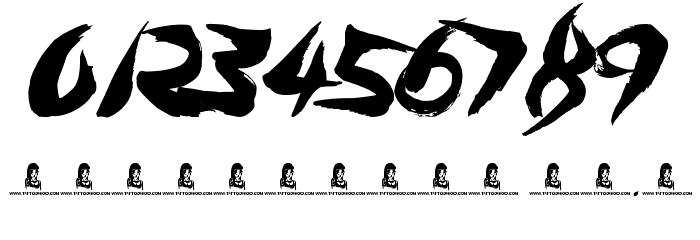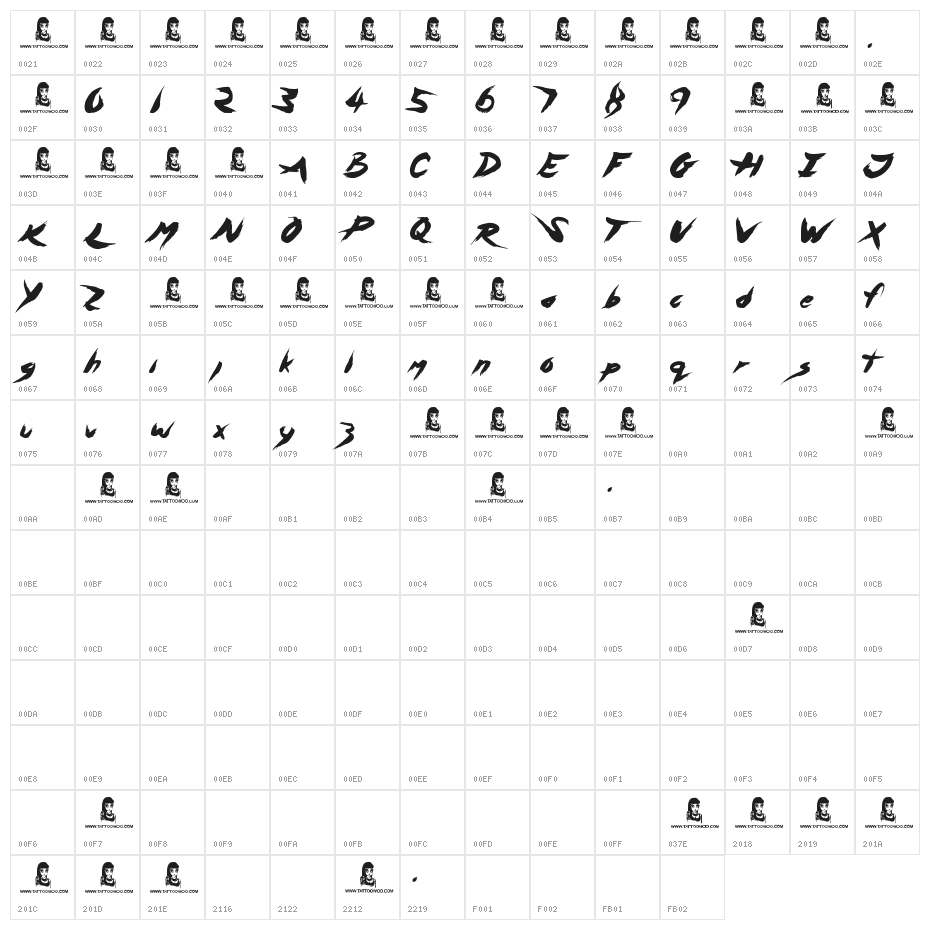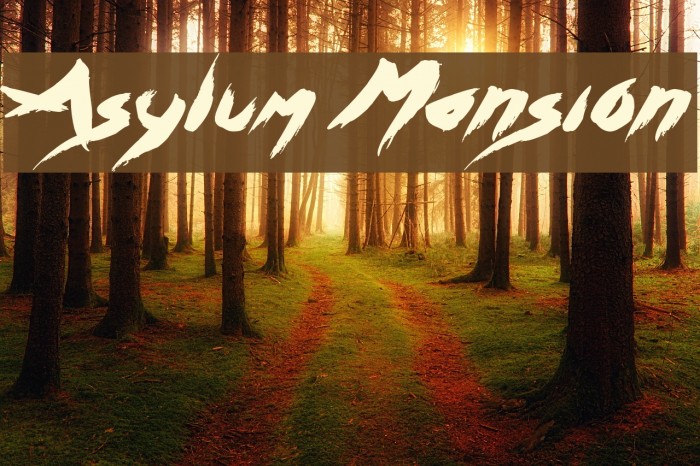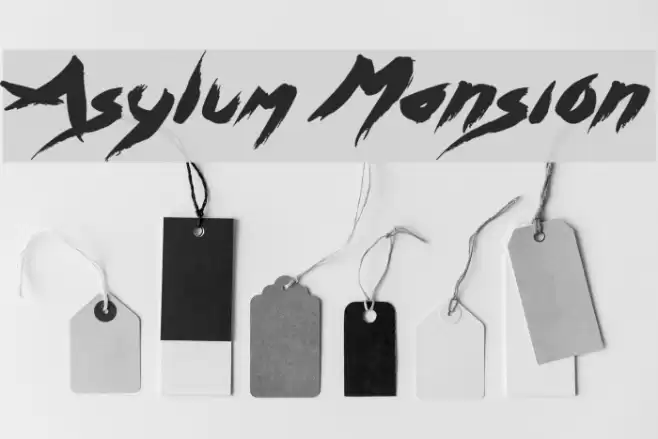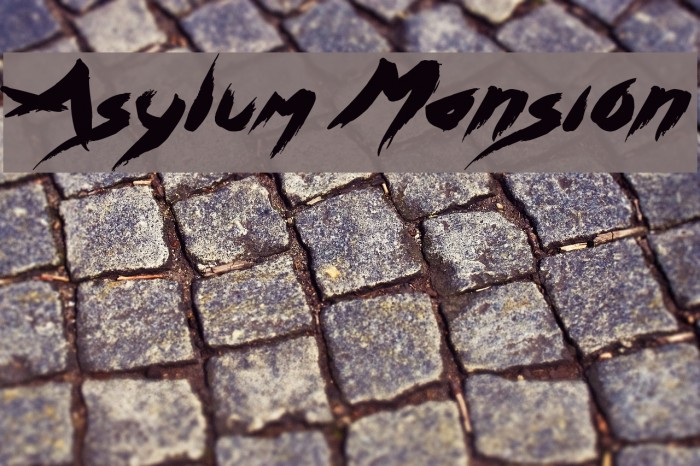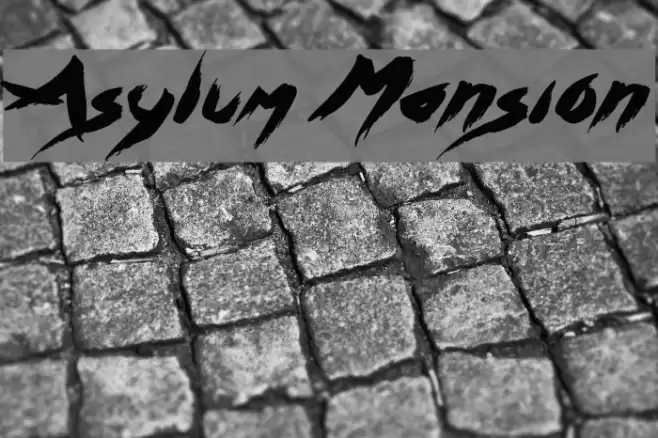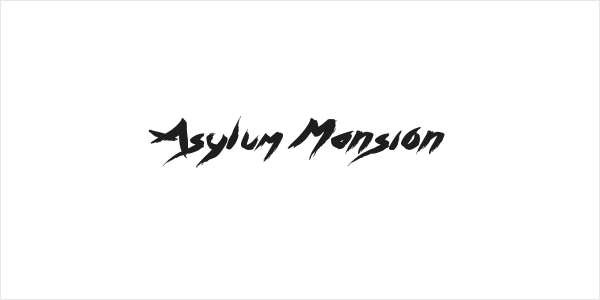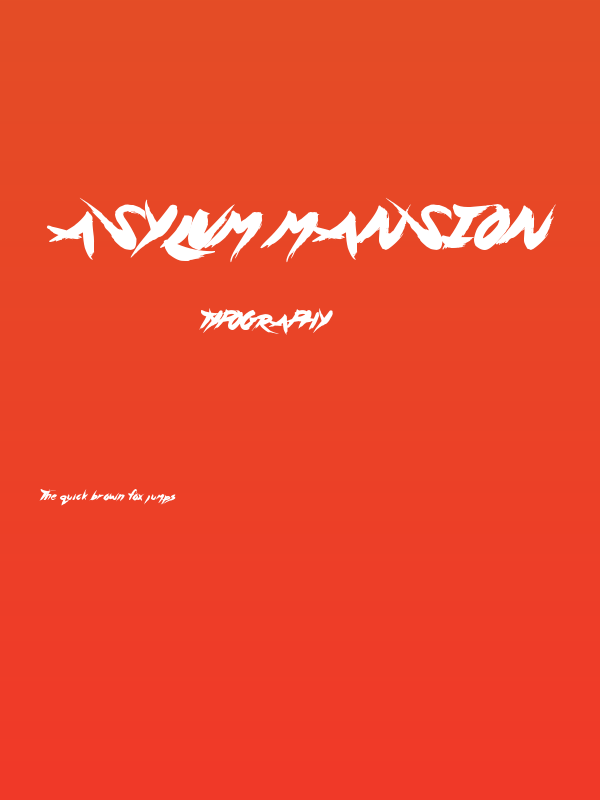
Asylum Mansion Font
Asylum Mansion Description
This font features a bold and expressive brush style, characterized by its dynamic and energetic strokes. The letters are crafted with a sense of movement, giving them a lively and artistic appearance. The uppercase and lowercase characters maintain a consistent style, with sharp angles and varying stroke widths that add to the dramatic flair. The numbers and special characters follow the same expressive design, ensuring a cohesive look across all elements. This font's unique style makes it stand out, ideal for projects that require a strong visual impact.
| Proposed Projects | Ideal for posters, album covers, branding, and any project needing a bold, artistic touch. |